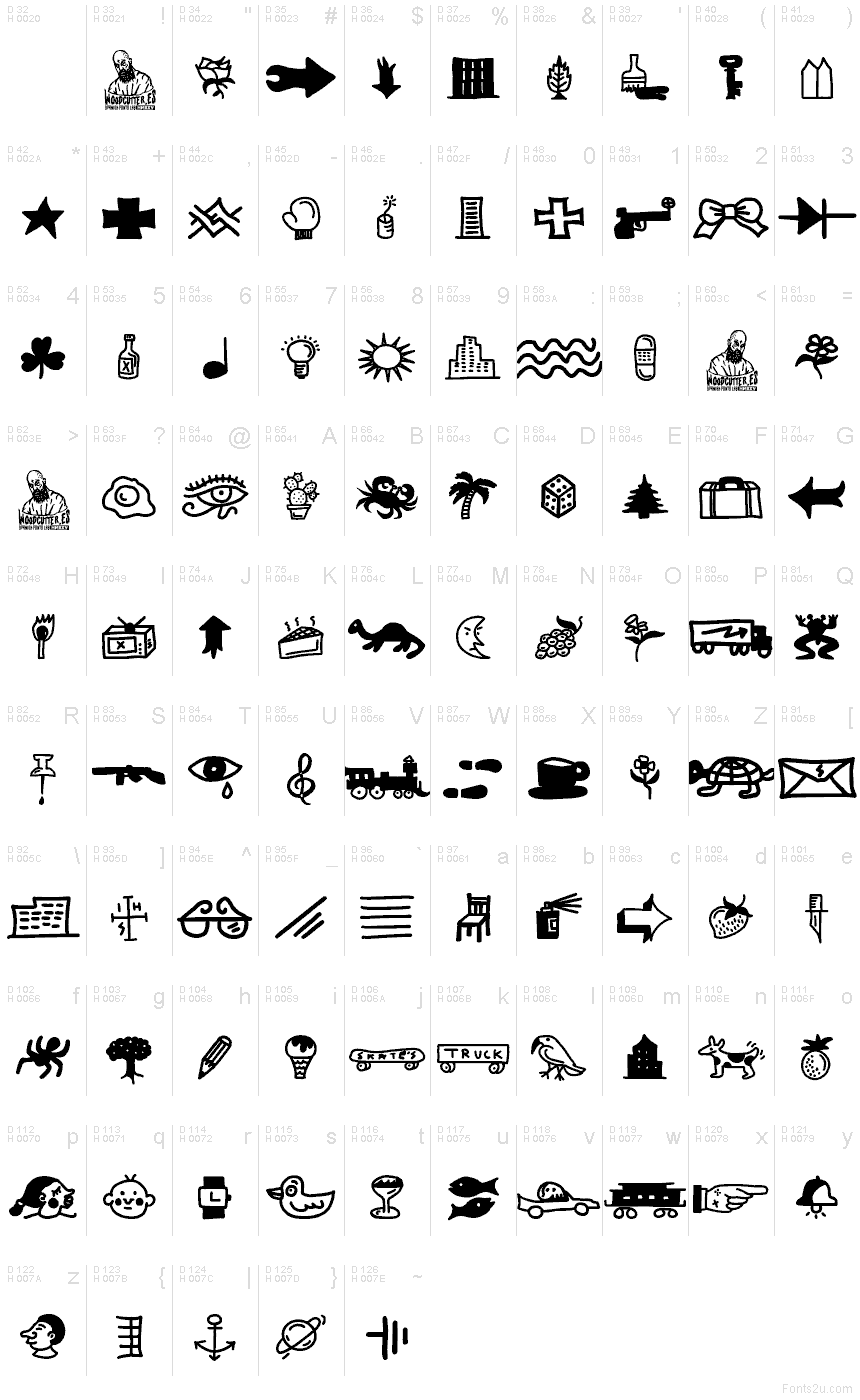
Icons Woodcutter Style
Icons Woodcutter Style font by Woodcutter is a free dingbat icon typeface. Its hand-cut look—chunky silhouettes, ink-blot edges, and a lively wobble—gives each pictogram a scrappy, woodprint energy. From a chair and fire extinguisher to arrows, fruit, tools, and critters, the set feels tactile and bold, with solid forms that hold up even when scaled down.
Using Icons Woodcutter Style adds instant DIY grit to zines, poster headlines, skate stickers, Halloween flyers, escape-room graphics, and crafty packaging. The icons read quickly, stack neatly, and bring rhythm to crowded layouts. For balance, pair this free font with a plain sans serif and give the icons generous spacing or larger sizes to let the texture breathe.